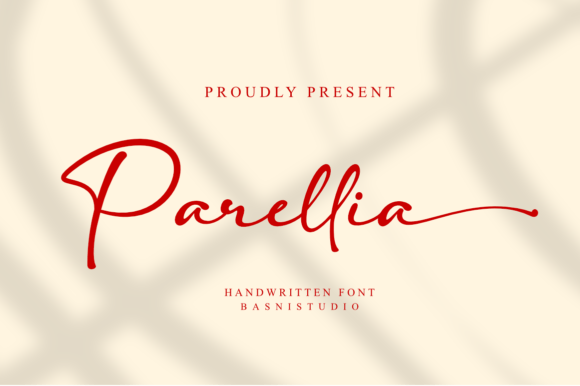
Step into the realm of unparalleled sophistication and grace with Parellia Font. Its flowing lines and swirling strokes emulate the beauty and elegance of a handwritten script, adding a touch of luxury to any project. This exquisite font is the perfect choice for high-end brands, upscale events, and premium products.
With Parellia, you have the power to elevate your designs to new heights. Craft stunning logos that exude sophistication, create elegant invitations that leave a lasting impression, or design eye-catching social media posts that command attention. Its versatility knows no bounds, making it a go-to for any creative project demanding a touch of elegance.
Crafted by the talented bee.genin, Parellia is a testament to the art of typography. Its meticulously crafted strokes and curves reflect the passion and dedication poured into its creation. Experience the joy of working with a font that feels both natural and effortless, allowing your words to flow with grace and beauty.
Parellia's PUA encoding ensures effortless access to a world of glyphs and swashes, empowering you to add exquisite details and flourishes to your designs. Unleash your creativity and explore endless possibilities, transforming ordinary text into captivating visual masterpieces.
Embrace the allure of Parellia and elevate your designs to the next level. Its elegance, sophistication, and versatility make it a must-have for any creative seeking to make a lasting impact. Indulge in the beauty of Parellia and witness the transformation of your designs into captivating works of art.